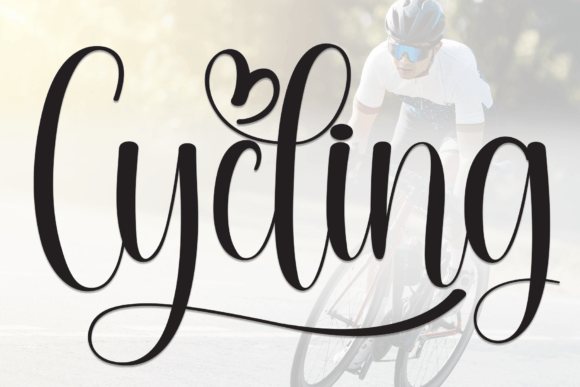
The Cycling Font: A Sweet and Friendly Handwritten Delight
I’ll never forget the time I was working on a wedding invitation project, and my client asked for a font that was “friendly, yet elegant.” I scoured the internet, trying out font after font, but nothing seemed quite right. That was until I stumbled upon the Cycling Font. This beautiful, handwritten font won my heart and my client’s approval. In this article, I’ll share my love for Cycling Font, its features, and how to make the most of it in your designs.
A Personal Review: What I Love About Cycling Font
Cycling Font is a true gem, and here’s what I love about it:
- ✨ Fresh and casual feel that’s perfect for creative projects
- ✅ Elegant yet approachable, making it suitable for wedding invitations, cards, and more
- 💕 Beautifully crafted letters with a personal touch
- 🎉 Highly legible, even at smaller font sizes
While Cycling Font is an excellent choice, there are a few things to keep in mind:
- ⚠️ Some letters may have slight variations in width, which can affect justified text
- 🤔 Limited availability of stylistic alternates, but what’s there is well-crafted
The Story Behind Cycling Font
Cycling Font was designed with love and care by a talented type designer. Although the exact story behind the font is unclear, it’s evident that the designer aimed to create a fresh, casual font that would bring a personal touch to creative projects.
- Q: What type of projects is Cycling Font best suited for?
- A: Cycling Font is perfect for wedding invitations, cards, and any design that requires a friendly, yet elegant touch.
- Q: Does Cycling Font support OpenType features?
- A: Yes, Cycling Font supports OpenType features, including ligatures and stylistic alternates.